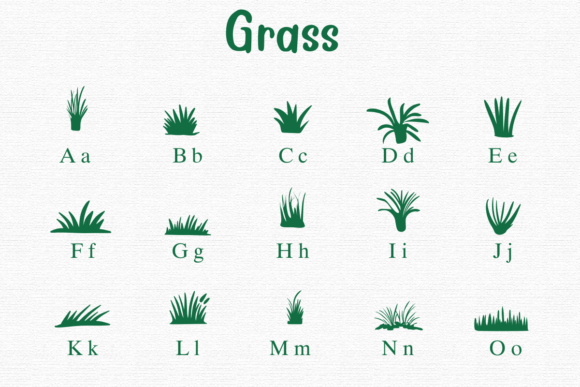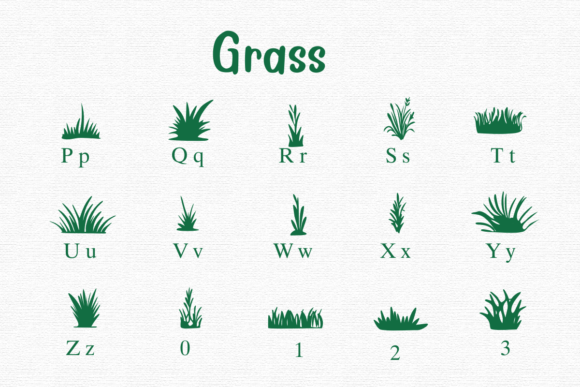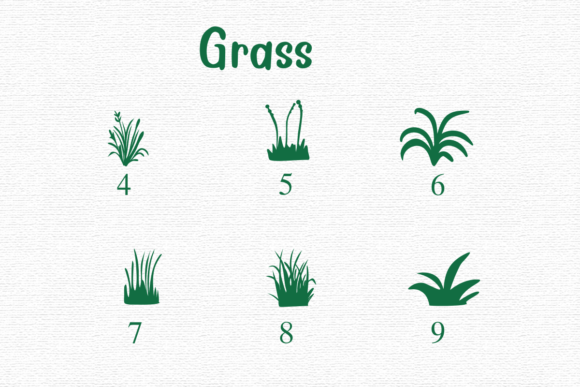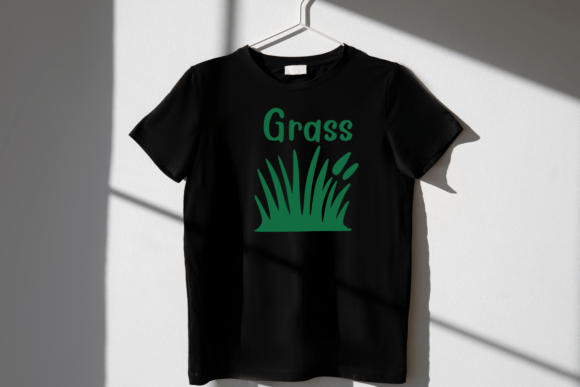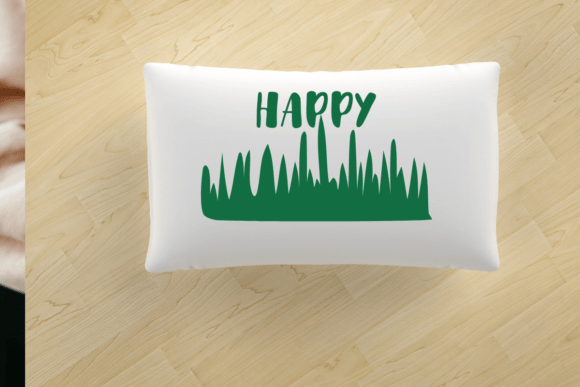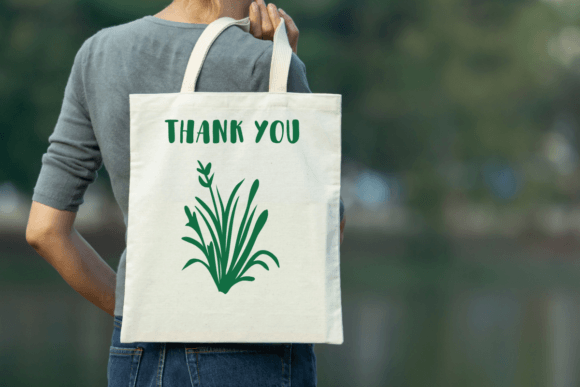
Exploring the World of Grass Font: A Fun and Creative Way to Add a Natural Touch
Are you tired of using the same old fonts in your designs and crafts? Look no further than the Grass Font! This unique dingbat font uses small pictures of grass instead of regular letters or numbers, adding a fun and natural touch to any project. In this article, we’ll dive into the world of Grass Font, exploring its features, uses, and benefits for designers and crafters.
What is Grass Font?
Grass Font is a dingbat font that replaces traditional letters and numbers with small images of grass. When you type with this font, you’ll see a variety of shapes and styles of grass instead of standard text. This font is perfect for adding a whimsical and decorative touch to your projects, making it ideal for designs that require a natural and earthy feel.
Features of Grass Font
Grass Font comes with a range of features that make it a versatile and fun font to work with. Some of its key features include:
- Variety of grass styles: The font includes a range of different grass styles, from simple blades to more complex and decorative designs.
- Customizable: You can adjust the size and color of the grass images to fit your project’s needs.
Uses of Grass Font
Grass Font is a versatile font that can be used in a variety of projects, including:
- Graphic design: Add a natural touch to your graphic designs, such as logos, brochures, and posters.
- Crafting: Use Grass Font to create unique and personalized crafts, such as scrapbook pages, cards, and gift tags.
- Digital art: Incorporate Grass Font into your digital art, such as illustrations and paintings.
Benefits of Using Grass Font
There are many benefits to using Grass Font in your designs and crafts. Some of the advantages include:
- Unique and eye-catching: Grass Font adds a unique and eye-catching touch to your projects, setting them apart from others.
- Natural and earthy feel: The font’s natural and earthy feel makes it perfect for projects that require a organic and wholesome look.
- Fun and creative: Grass Font is a fun and creative way to add personality to your projects.
Tips for Using Grass Font
Here are some tips for getting the most out of Grass Font:
- Experiment with different sizes and colors: Play around with different sizes and colors to find the look that works best for your project.
- Combine with other fonts: Combine Grass Font with other fonts to create a unique and interesting look.
- Use it sparingly: Use Grass Font sparingly to add a touch of whimsy to your project, rather than overwhelming it.
Grass Font is a fun and creative way to add a natural touch to your designs and crafts. With its unique features, versatility, and benefits, it’s a font that’s sure to inspire designers and crafters alike. Whether you’re looking to add a whimsical touch to your graphic designs, crafts, or digital art, Grass Font is a great choice. So why not give it a try and see what amazing projects you can create?